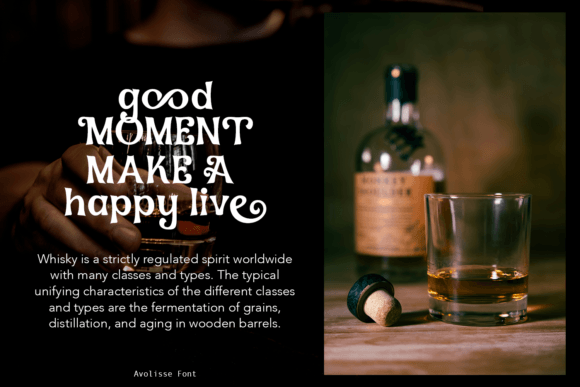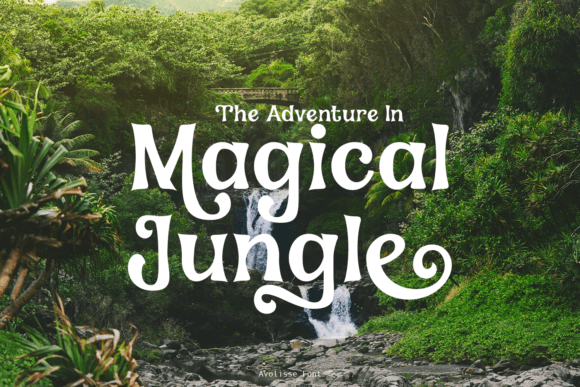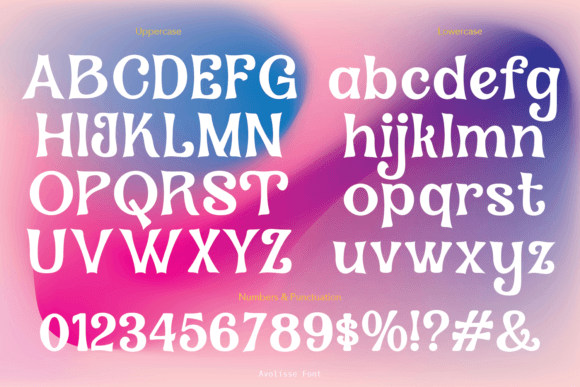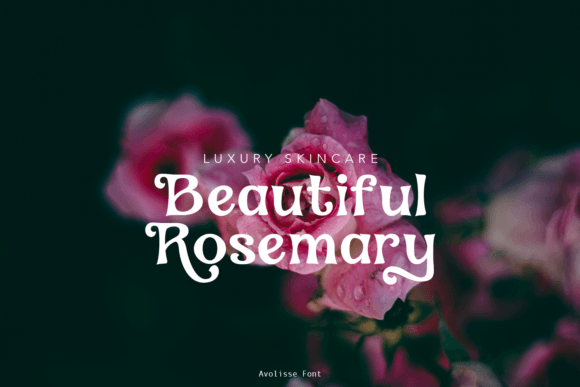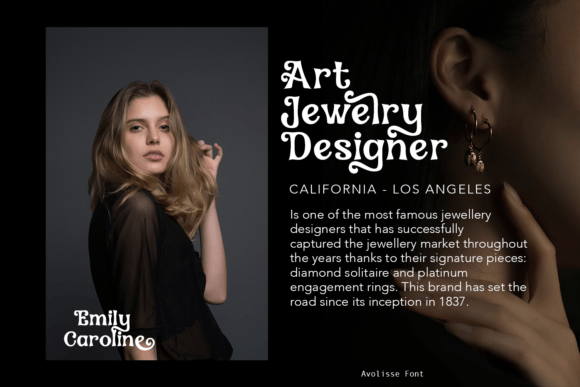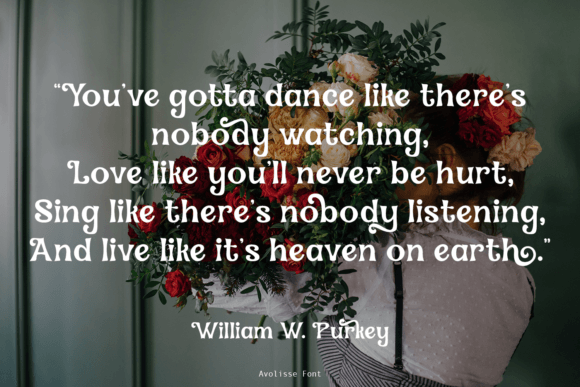
The Magical World of Avolisse Font: A Designer’s Delight
I’ll never forget the time I was working on a branding project for a luxury fashion client. I had spent hours pouring over design concepts, but something was missing. That’s when I realized I needed the perfect font to tie everything together. After scouring the internet and trying out countless fonts, I stumbled upon Avolisse Font. It was love at first sight! 💫
Avolisse Font is a Magical Classic font with a distinctive 80’s style, characterized by sharp and blunt ends. Its classic and refined aesthetic makes it perfect for creating a rhythm that’s comfortable to read. In this article, I’ll share my experience with Avolisse Font, its features, and how to make the most of it in your designs.
An Honest Review of Avolisse Font
• ✅ Unique 80’s style with sharp and blunt ends that adds a touch of nostalgia to any design
• ✅ Classic and refined aesthetic that’s perfect for creating a sophisticated look
• ✅ Versatile and can be used for a wide range of projects, from logotypes to packaging design
• ✅ Comfortable to read, making it perfect for body text and headlines
• ⚠️ May not be suitable for very small font sizes, as some details may get lost
• ⚠️ Limited availability of certain OpenType features, such as ligatures and stylistic alternates
The Backstory of Avolisse Font
Avolisse Font was designed with the intention of capturing the essence of 80’s typography. The designer, inspired by the iconic fonts of the era, aimed to create a font that was both nostalgic and timeless. With its sharp and blunt ends, Avolisse Font is a unique and recognizable addition to any design.
Q: What is Avolisse Font?
A: Avolisse Font is a Magical Classic font with a distinctive 80’s style, characterized by sharp and blunt ends.
Q: What can I use Avolisse Font for?
A: Avolisse Font is perfect for a wide range of projects, including logotypes, stickers, greeting/wedding cards, packaging design, headlines, brand identity, t-shirts, posters, magazines, books, Instagram, websites, and more.
Q: Is Avolisse Font easy to read?
A: Yes, Avolisse Font is designed to be comfortable to read, making it perfect for body text and headlines.